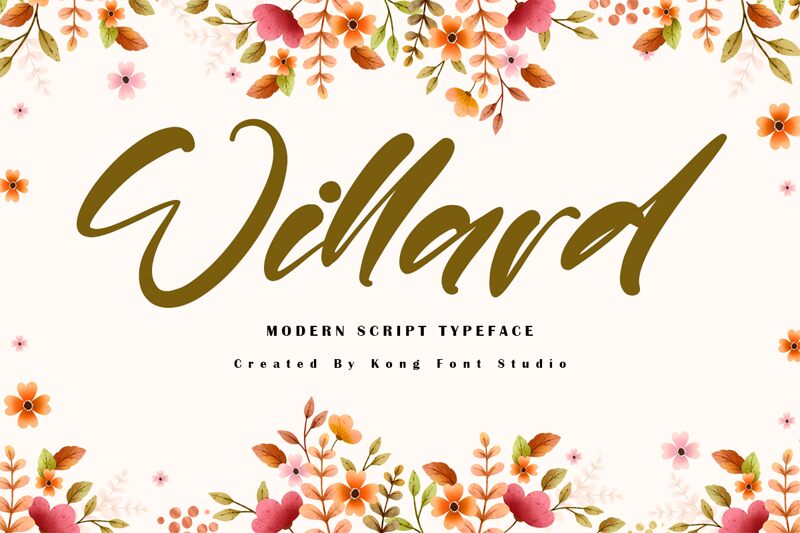
Willard
Willard, the brainchild of renowned font designer Kong Font, is a captivating modern calligraphy font that exudes elegance and sophistication. With its fluid strokes and graceful curves, Willard adds a touch of refinement to any project it graces. Its versatility makes it suitable for a wide range of creative endeavors, from wedding invitations to luxury branding. Whether used in digital or print media, this semi-bold typeface effortlessly captures attention and conveys a sense of timeless beauty. Crafted with meticulous care, Willard is destined to elevate your designs and leave a lasting impression on your audience.